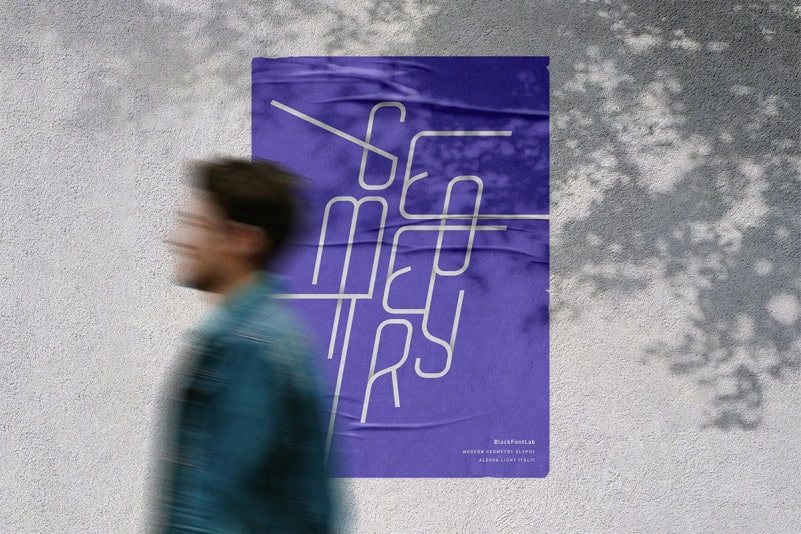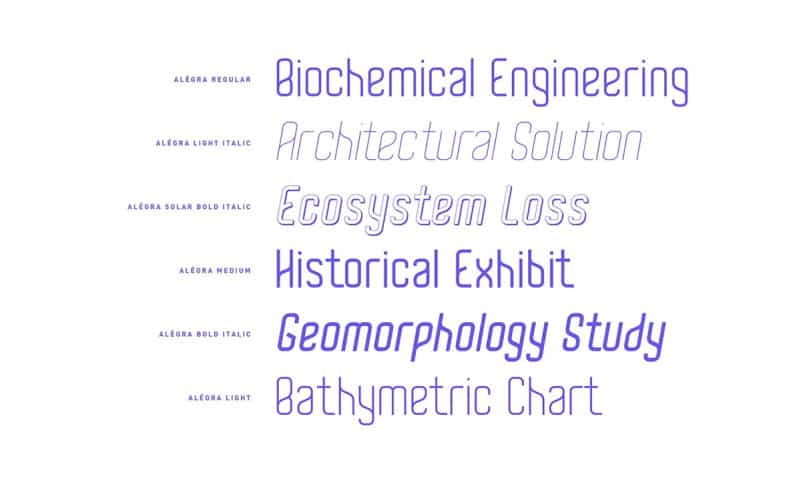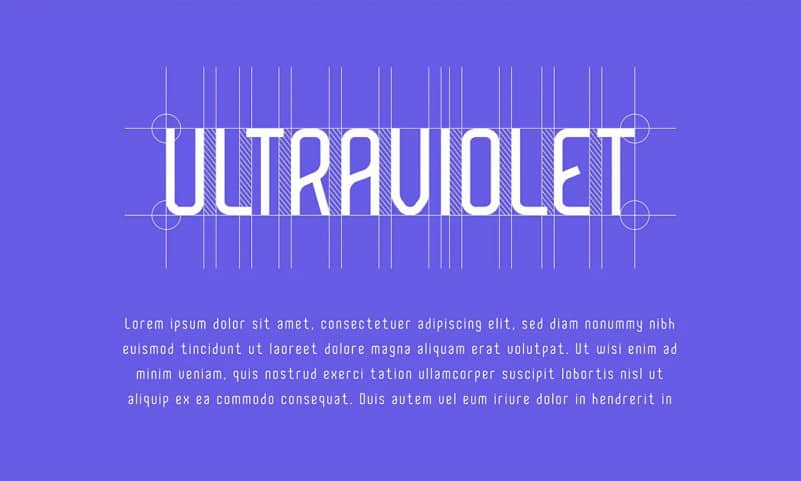
Alégra Sans Serif Font
Alégra Font is a modern Sans Serif Font created by BlackFontLab. This font offers a wide variety of styles to help you discover the best mood for your projects, from body text to large titles, from classic styles to modern and bold styles. Alégra Sans Serif Font a minimalist san serif font family, with a slight curvy shape. This typeface is influenced by natural futuristic stlye, suitable for presentation, exhibition or any beauty type of project purposes. Its unique shape make the overall visual looks formal yet stylish. We have prepared 12 styles variety including hairline, light, regular, medium, bold, solar bold, and all its italic version.